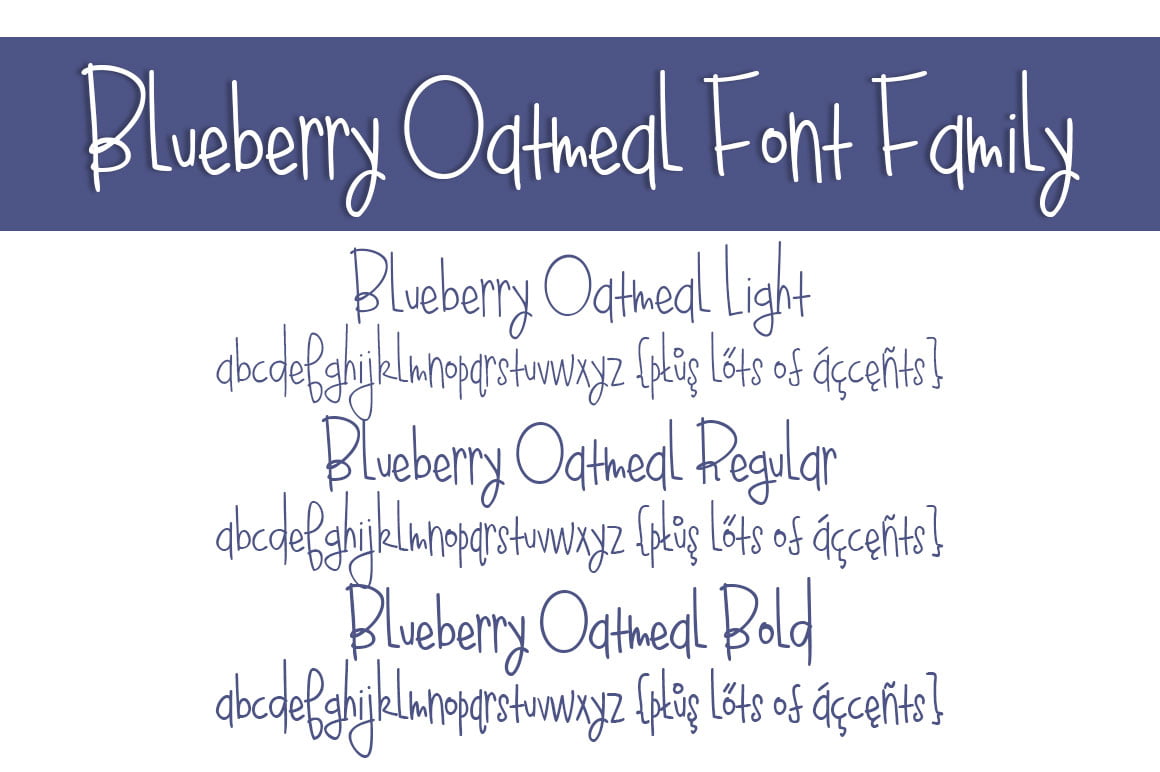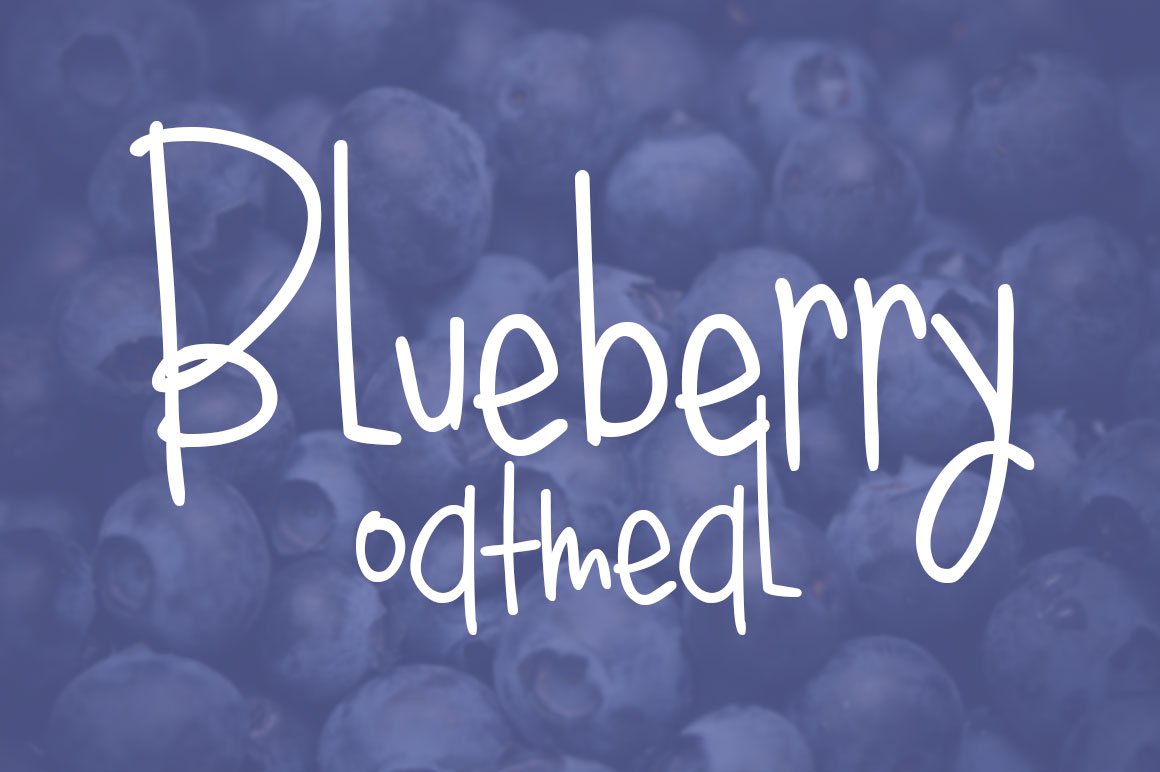
Blueberry Oatmeal
Blueberry Oatmeal Font Family Letters
The Blueberry Oatmeal Font Family is a handwritten sans serif font created in 2015 by Brittney Murphy Design. Blueberry Oatmeal has bold, light and regular versions available, and each feature 335 characters and supports most latin based languages. The Blueberry Oatmeal font is great for giving your project a handwritten crafty feel.
Blueberry Oatmeal Regular